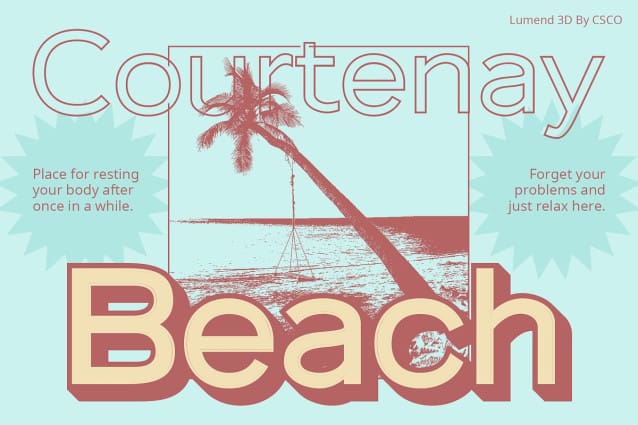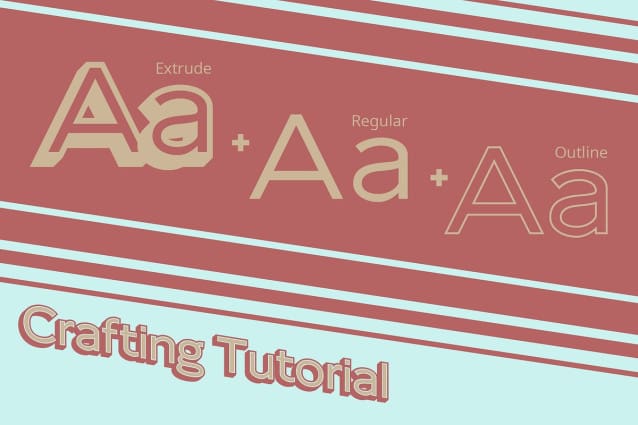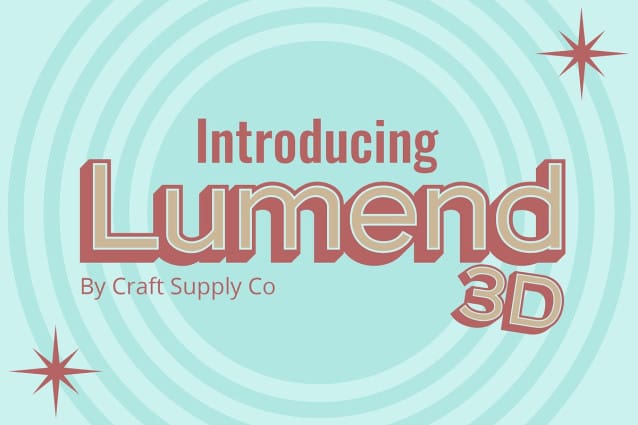
Lumend 3D Font
Lumend 3D Font: Elevating Professionalism in Typography. Effortless Precision Lumend 3D, a sans-serif font meticulously crafted for a clean and professional aesthetic, sets the standard for seamless precision in every character.
Depth Redefined This font goes beyond the ordinary with an added layer of sophistication. The ingenious use of extrude and outline effects breathes life into Lumend, giving it a captivating 3D appearance.
Professional Sophistication Lumend 3D isn’t just a font; it’s a statement of professionalism. Its sharp lines and refined shapes make it an ideal choice for corporate presentations, reports, and any design where a sleek and modern touch is needed.
Versatility Unleashed While Lumend3D radiates professionalism, its versatility shines. It seamlessly adapts to various design contexts, offering a polished look that suits a range of applications.
Conclusion Lumend 3D redefines the boundaries of professional typography, combining precision, sophistication, and versatility. Elevate your projects with Lumend3D, where each letter is a testament to the power of organized and refined design.